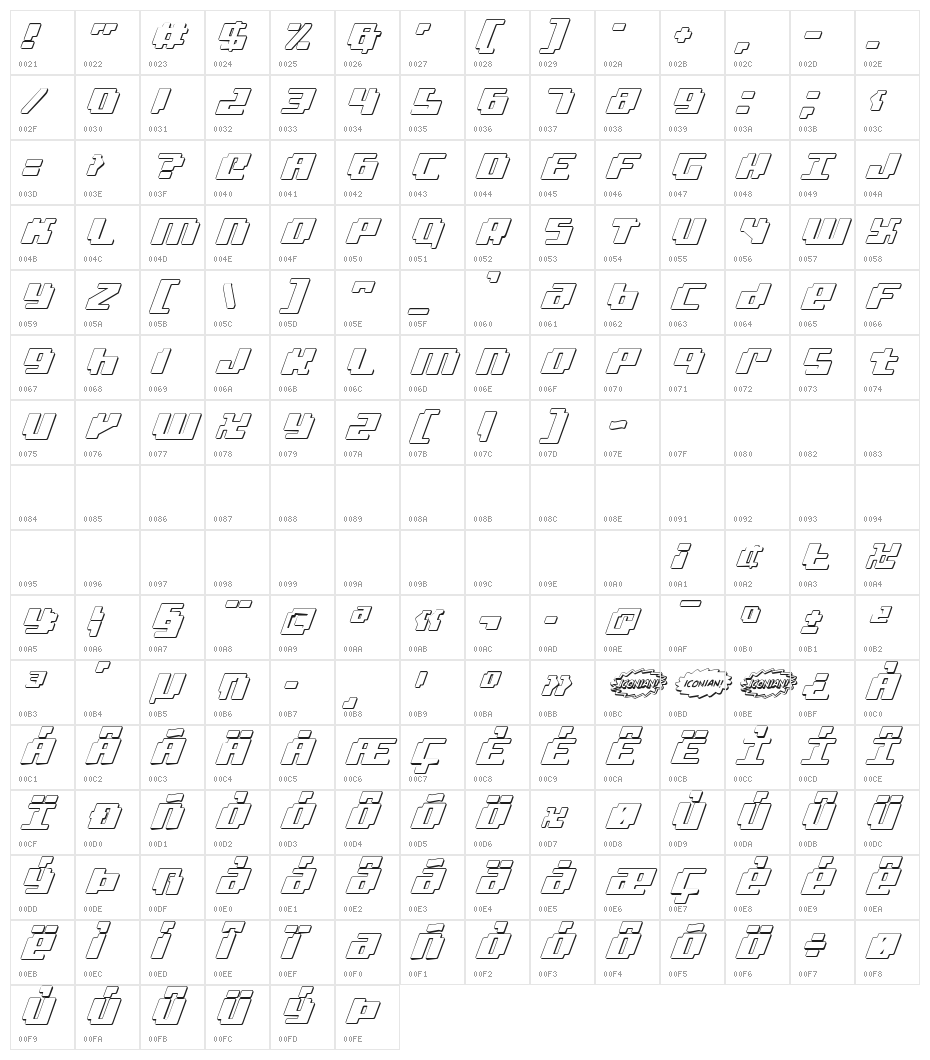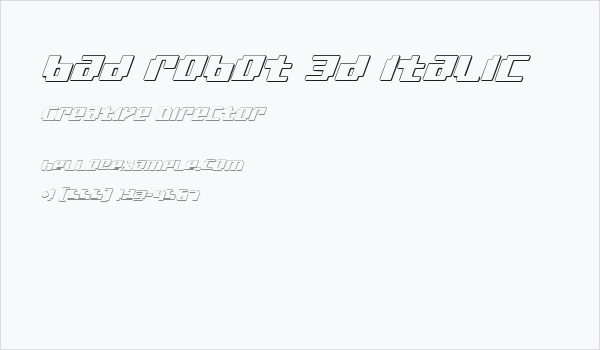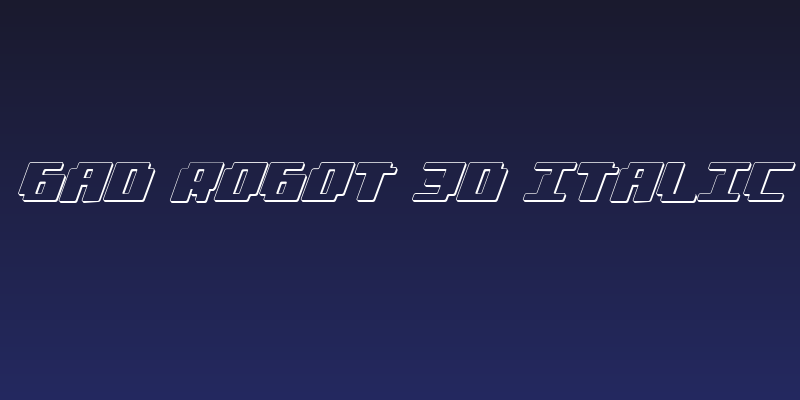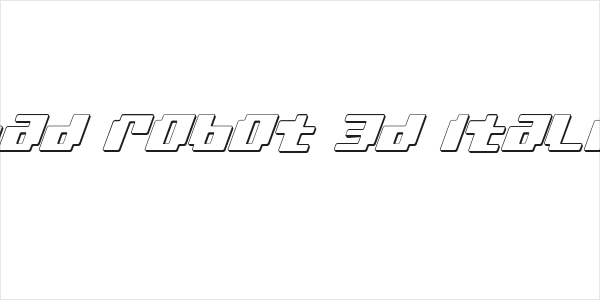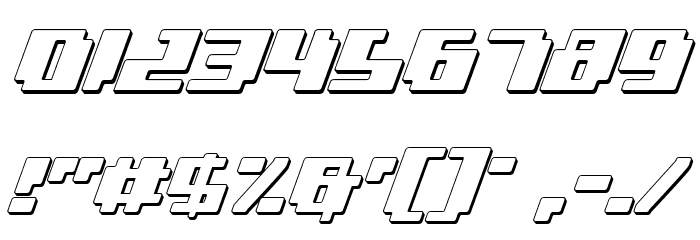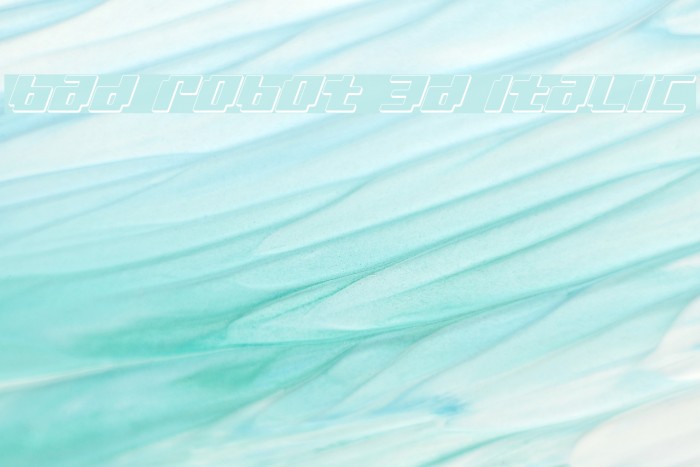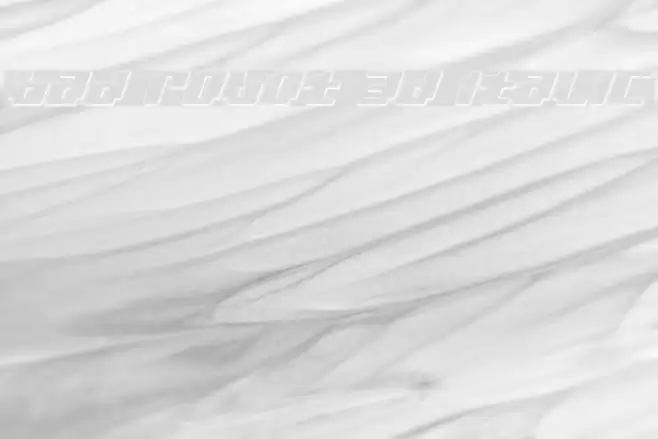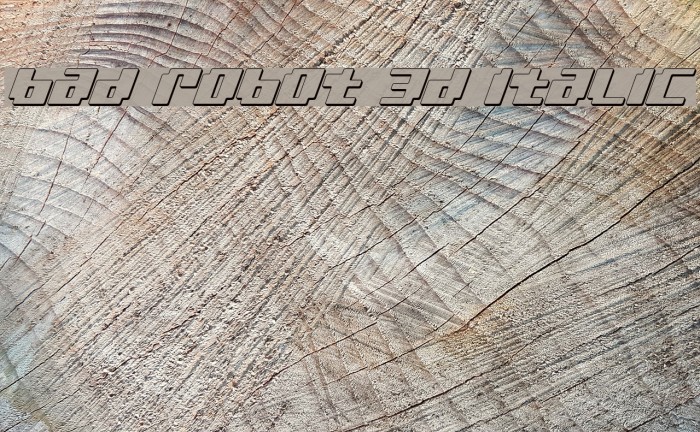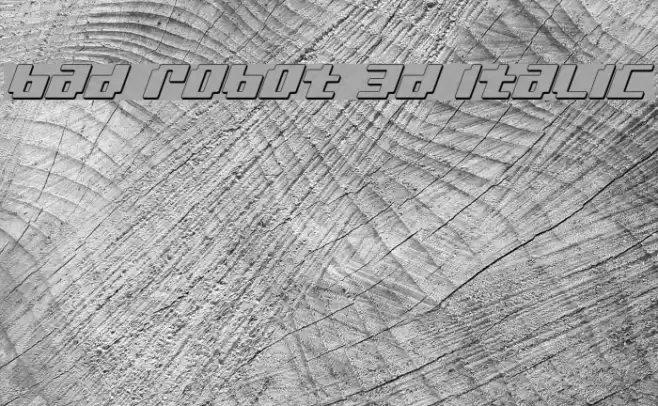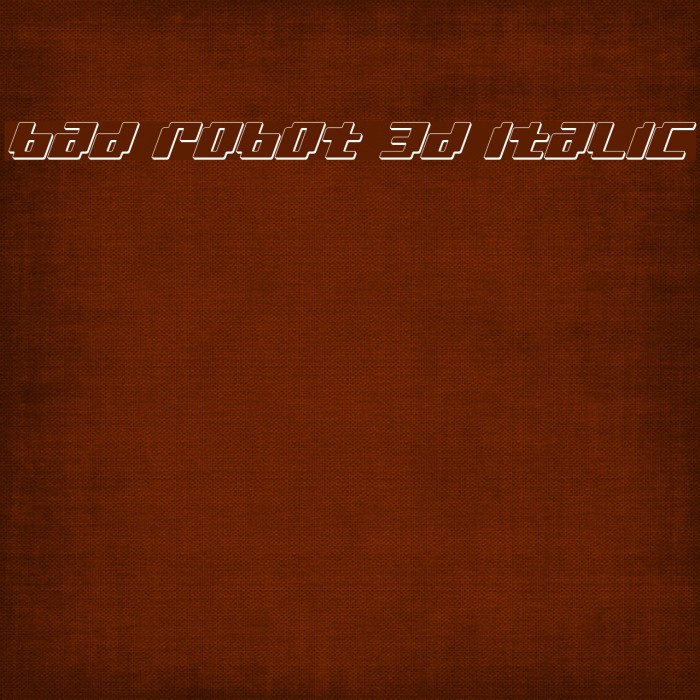
bad robot 3d italic Font
bad robot 3d italic Description
This font features a bold, futuristic design with a 3D effect that gives it a dynamic and modern appearance. The characters are angular and geometric, with a consistent italic slant that adds a sense of motion and speed. The outlines are thick, creating a strong visual impact, while the interior spaces are open, enhancing readability. The font includes a full set of uppercase and lowercase letters, numbers, and a variety of special characters, making it versatile for various design needs. Its unique style is ideal for projects that require a tech-savvy or sci-fi aesthetic.
| Proposed Projects | Ideal for technology-themed posters, video game titles, sci-fi book covers, and branding for tech companies. |